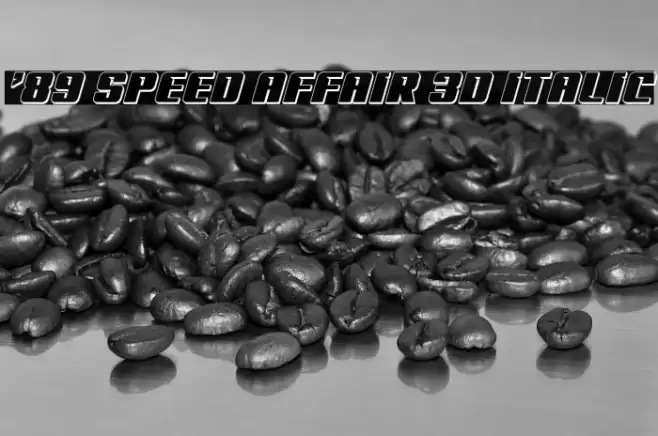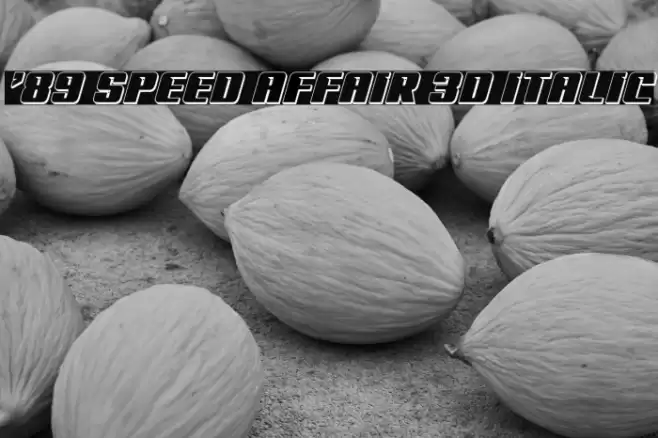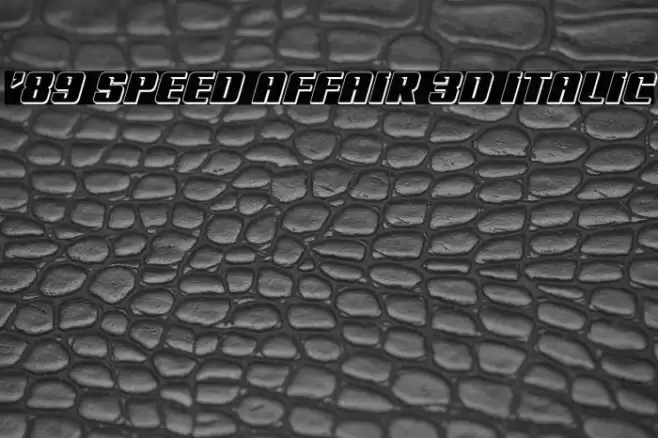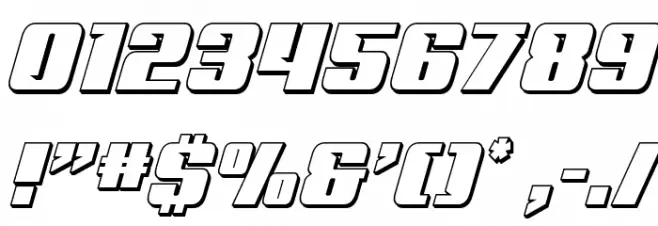
'89 Speed Affair 3D Italic Font
'89 Speed Affair 3D Italic Description
This font features a bold, dynamic style with a 3D italicized effect that gives it a sense of motion and speed. The characters are outlined, creating a striking visual impact that is both modern and energetic. The uppercase and lowercase letters maintain a consistent design, emphasizing angular lines and sharp edges. The numerals and special characters follow the same aesthetic, ensuring uniformity across all glyphs. This font is ideal for projects that require a sense of urgency or excitement, making it perfect for sports branding, automotive designs, or any creative work that aims to capture attention quickly.
A bold, 3D italic font with a dynamic, speedy appearance from Regular fonts.
- Proposed Projects: Ideal for sports branding, automotive designs, and dynamic advertising campaigns.